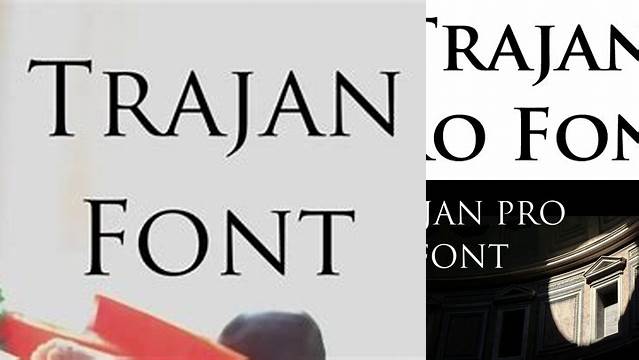
Hey everyone! If you're on the hunt for a classic, elegant font that screams timelessness, then you've probably stumbled upon the Trajan Font. And guess what? You can snag it for free on DaFont! This article is your ultimate guide to everything Trajan, from its history and design to how to download and use it for all your creative projects. So, buckle up, buttercups, because we're diving deep into the world of Trajan! We will explore the origins, the design, and the best ways to use this popular font to elevate your designs.
Trajan Font: A Historical Deep Dive
Alright, let's start with a bit of history, shall we? The Trajan Font isn't just any old typeface; it's got some serious pedigree. Inspired by the inscription on Trajan's Column in Rome, this font is a direct descendant of ancient Roman letterforms. Designed by Carol Twombly in 1989 for Adobe, it quickly became a sensation. The elegance and readability of the font made it an instant hit for many purposes. The crisp, clean lines and serifs evoke a sense of authority and sophistication. Think about the grandeur of the Roman Empire, and you'll get a feel for what the Trajan Font brings to the table. This connection to history gives the font a unique character and charm that sets it apart from many modern typefaces. It's not just a font; it's a piece of history you can use to make your designs stand out. The font's design is based on the inscriptions found on the Trajan's Column. These inscriptions are considered some of the finest examples of Roman letterforms. The meticulous carving of the letters into the stone created a visual standard that is still admired today. Twombly’s interpretation in the Trajan Font seeks to capture that same artistry, making it a faithful digital rendition. That's pretty cool, right? The font has been used in a vast number of applications.
Unveiling the Inspiration: Trajan's Column
Let's talk a little more about the origins of the Trajan Font. The design of the font is not just aesthetically pleasing; it's steeped in history. The inscription on Trajan's Column, a monument erected in Rome in 113 AD to commemorate Emperor Trajan's victory in the Dacian Wars, serves as the design's primary inspiration. The beautifully carved letters on the column are celebrated for their exceptional clarity, balance, and harmonious proportions. These inscriptions were created by skilled artisans who used advanced techniques to achieve a level of precision. The details of the inscription—the thickness of the strokes, the shape of the serifs, and the overall arrangement of the letters—have been meticulously studied by typographers for centuries. The Trajan Font captures this legacy, using the essence of Roman letterforms. It offers an accessible way to experience the classic elegance of ancient Rome in our modern digital landscape. The legacy of these historical letterforms continues to inspire designers and artists. This rich history adds a layer of meaning and significance to the font. When you choose to use Trajan Font, you are connecting your design to the grandeur of the Roman Empire.
The Legacy of Carol Twombly's Design
Carol Twombly's contribution to typography cannot be overstated. With her design of the Trajan Font, she helped shape the digital landscape. Twombly, who was also responsible for other famous typefaces, such as Lithos Pro and Adobe Caslon, was a pioneer. Her aim was to translate the grace and precision of the Trajan's Column inscriptions into a digital format. The creation of Trajan Font was a labor of love. It involved a detailed analysis of the original carvings to ensure authenticity and readability in the digital age. Twombly's design also focused on ensuring that the font would be versatile and adaptable. This means that it could be used across a variety of media and platforms. The font has been utilized in numerous applications, including movie posters, book covers, and corporate branding. The font’s versatility and elegance have helped it become a favorite among designers and organizations worldwide. Her work is celebrated for its timeless appeal and the enduring impact it has on the design world. The Trajan Font stands as a testament to her vision and talent.
The Design Philosophy Behind Trajan Font
Now, let's get into the design elements that make Trajan Font so iconic. This font isn’t just about aesthetics; it's about a philosophy of design that values clarity, elegance, and historical accuracy. The font is characterized by its elegant serifs, which are the small decorative strokes at the end of each letter. These serifs, inspired by the inscriptions on Trajan's Column, give the font a classical look. The balanced proportions and carefully crafted letterforms make the text easy to read, even in larger blocks. The designer paid close attention to the weight and spacing of the letters to create a sense of harmony and balance. This dedication to detail ensures that the font is visually appealing and functional. Whether used in headlines or body text, the Trajan Font maintains its readability. The combination of these elements creates a typeface that's both classic and contemporary. This makes it suitable for a wide range of design applications. The font's design philosophy celebrates history and functionality.
Decoding the Characteristics of Trajan
Let’s break down the specific design characteristics of the Trajan Font. Firstly, the serifs, which are a standout feature, are not merely decorative; they enhance readability by guiding the eye across the text. Secondly, the font has a high x-height, which means the lowercase letters are relatively tall compared to the uppercase letters. This feature increases its legibility, especially in smaller sizes. Thirdly, the font's letterforms are based on the classical Roman capital letters. This provides a sense of authority and elegance. Each letter is carefully designed with balanced proportions and a consistent stroke weight. This attention to detail is what makes Trajan Font so distinctive and successful. Whether you're a designer or just someone who appreciates good typography, understanding these elements is essential to appreciating the font. The clarity and balance that the font offers are great for modern designs. The design characteristics blend history with readability. This makes it a great choice for a wide range of projects.
Understanding the Anatomy: Serifs, Strokes, and Spacing
To appreciate the Trajan Font fully, let's delve into its anatomy. The font has a deep connection to the inscriptions on Trajan's Column, so understanding its structure is important. Let's start with serifs. These small strokes at the ends of the letters give the font its classic appearance. In Trajan, the serifs are sharp and well-defined, which contributes to its elegance and readability. Next, let's look at the strokes. The stroke weight is consistent across all characters, providing a sense of balance. The strokes have a perfect balance, which is essential for the visual appeal. Finally, the spacing is important. The space between each letter and word is carefully designed to ensure readability. The font has a consistent and appropriate spacing, allowing the text to flow. Understanding the anatomy of the Trajan Font will help you to appreciate how the font works. The design is both beautiful and functional. These features combine to make a timeless typeface that continues to be popular.
Final Thoughts: Unleash Your Creativity with Trajan